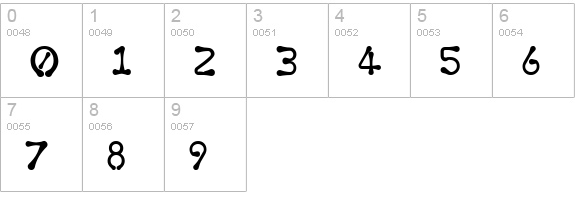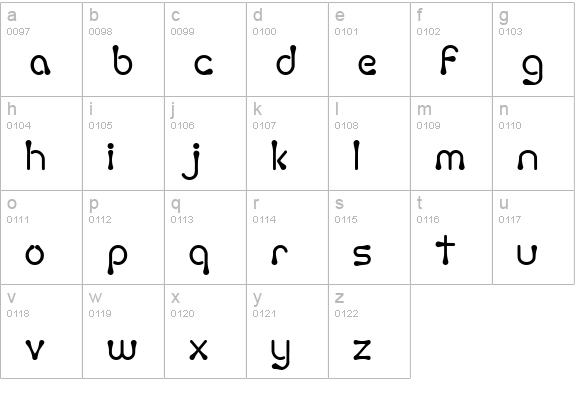
Torcing Away Font Details
Introducing Torcing Away, a captivating and versatile font that is bound to leave a lasting impression. With its unique and intricate design, this font effortlessly blends modern sophistication with a touch of artistic flair. Every letter is meticulously crafted, showcasing an exquisite balance between boldness and elegance. Torcing Away is not just visually stunning, but also highly practical and adaptable. Its extensive character set allows for seamless integration into various design projects, whether it be for branding, advertising, packaging, or any creative endeavor that requires a touch of finesse. The smooth curves and sharp edges of each glyph create a harmonious flow, ensuring legibility and readability at any size or resolution. But what truly sets Torcing Away apart is its affordability. This exceptional font is available to download for free exclusively at FontsMarket.com. Yes, you read that right – absolutely free! We believe that creativity should never be hindered by financial constraints, which is why we are proud to offer Torcing Away as a gift to the design community. So, go ahead and let your imagination run wild with Torcing Away. Whether you're a professional designer or an aspiring artist, this font will undoubtedly elevate your creations to new heights. Download it today at FontsMarket.com and unlock a world of endless possibilities.